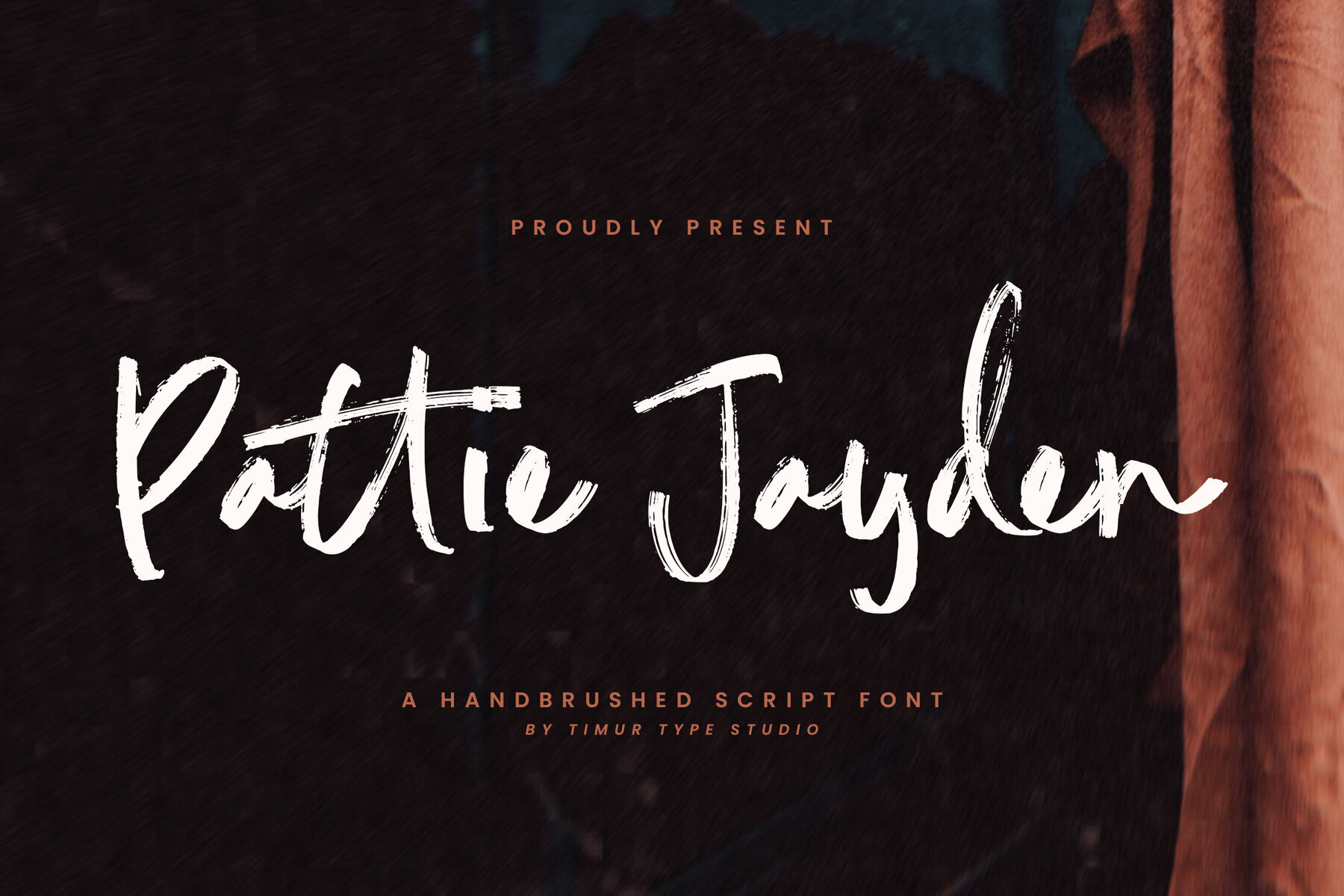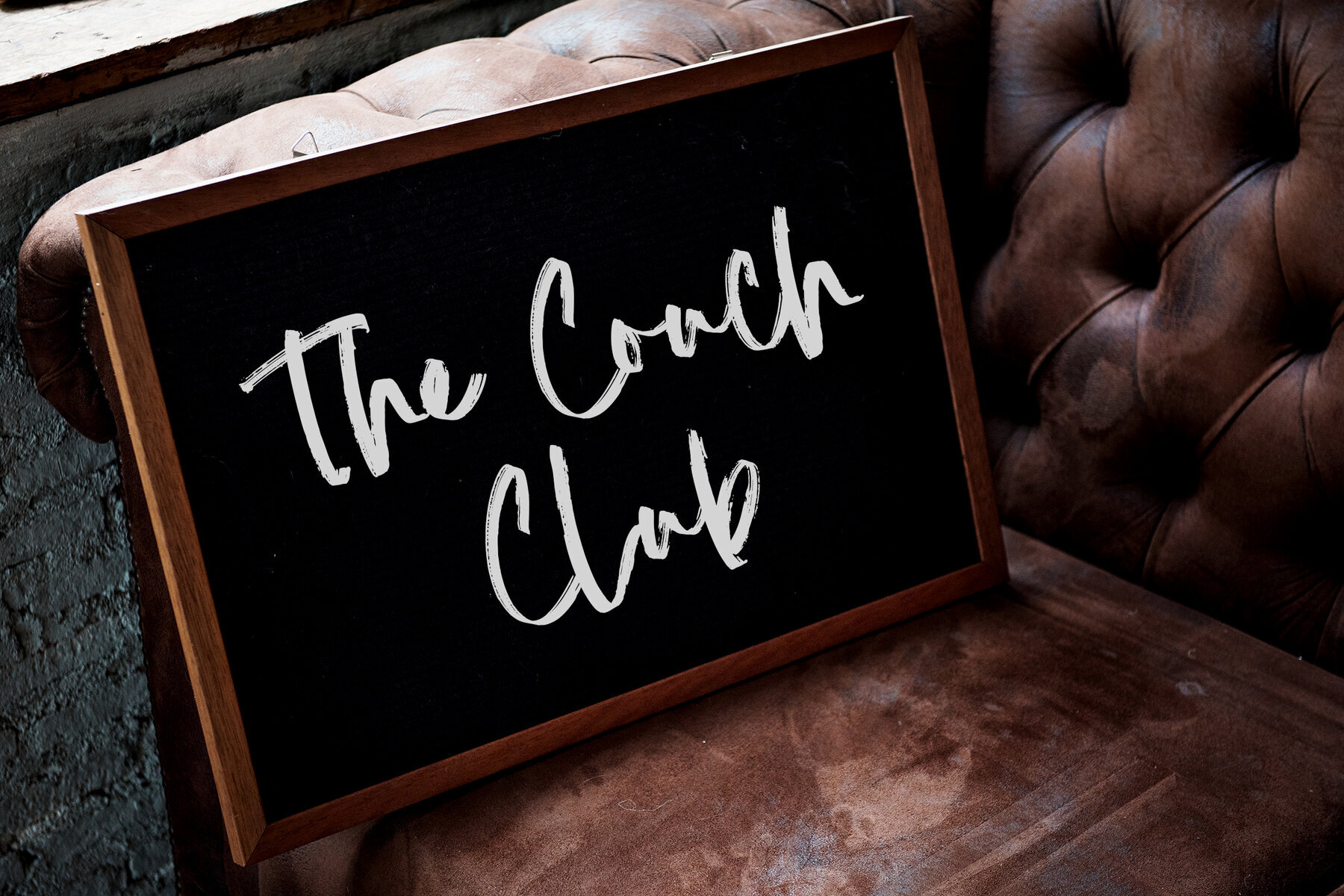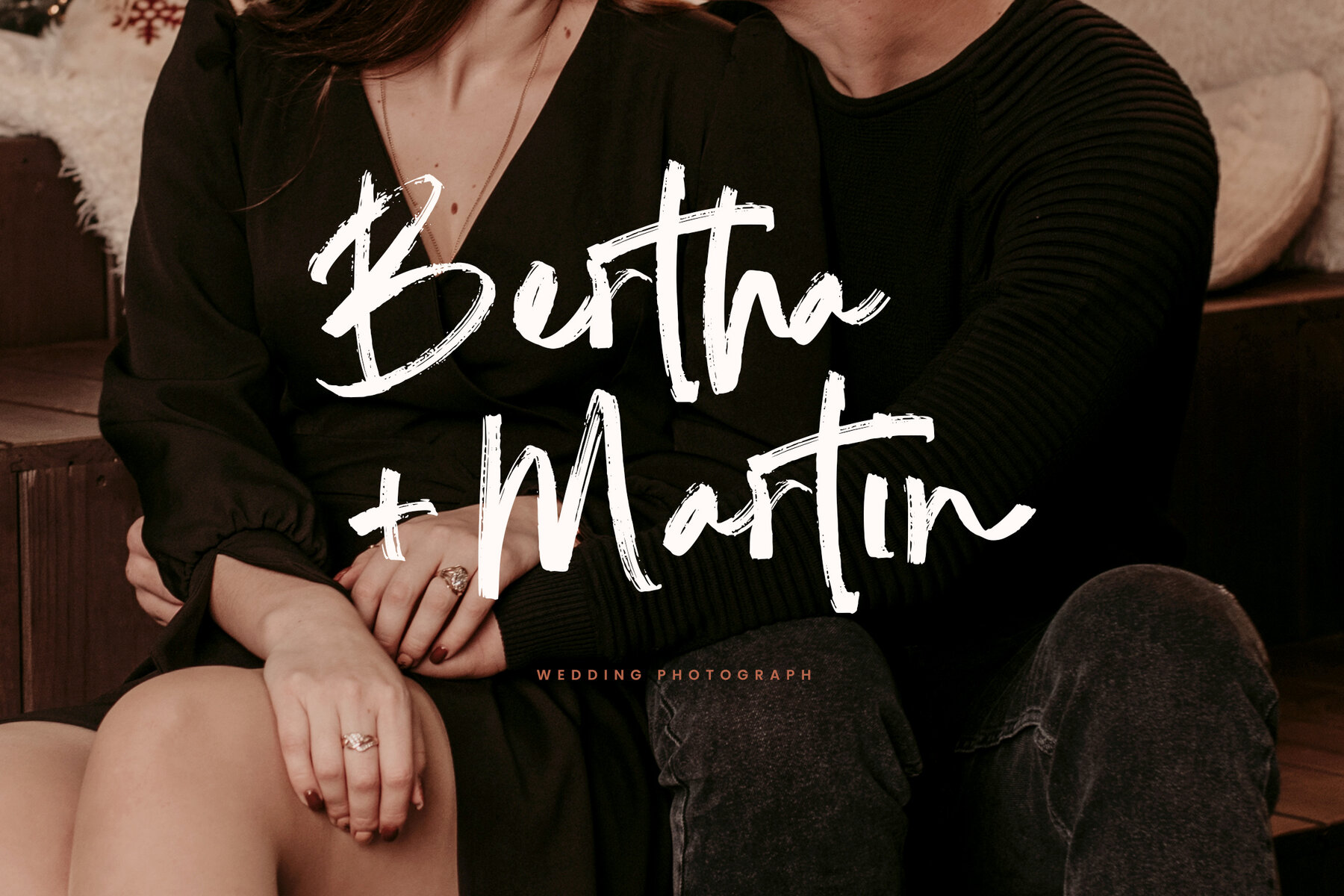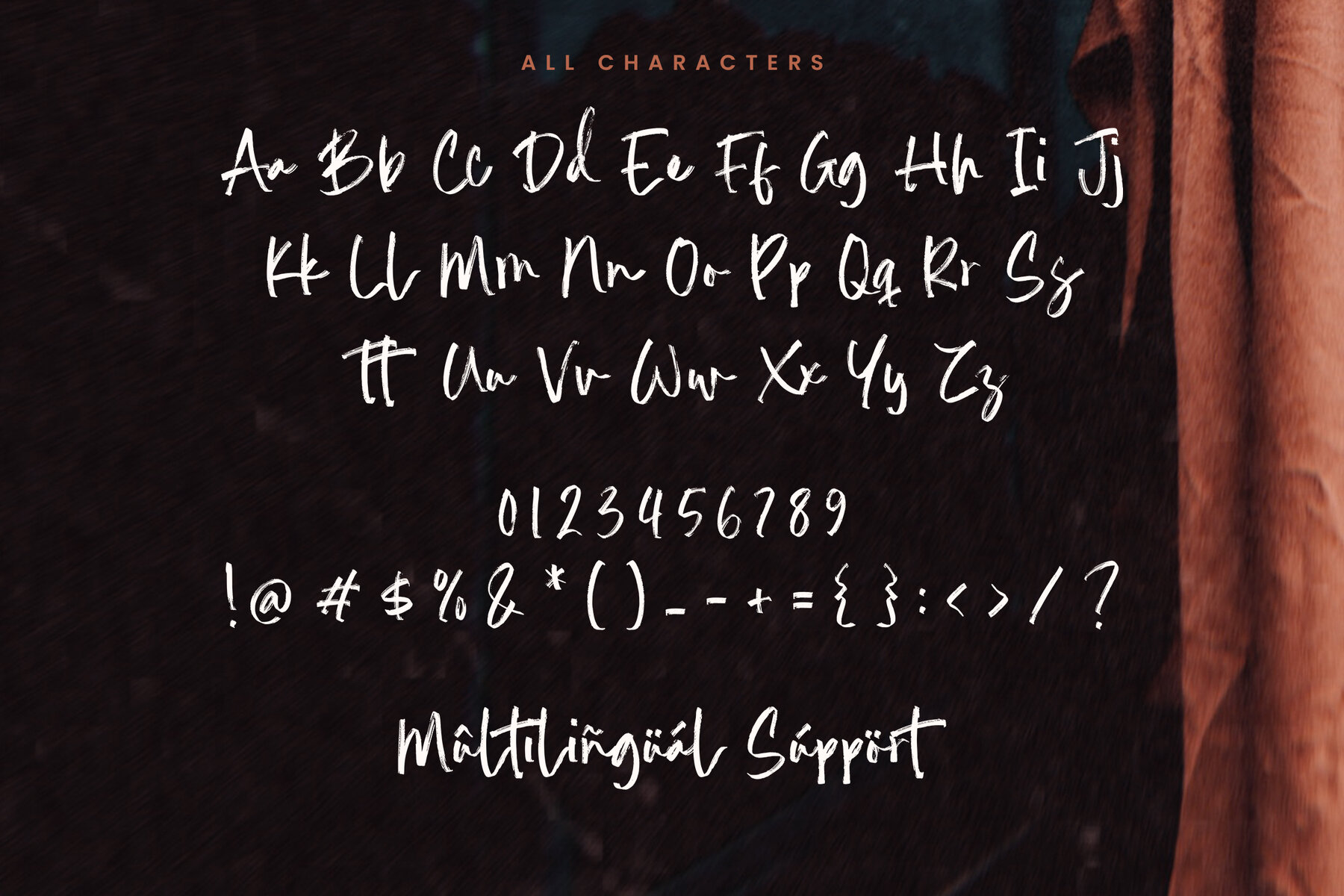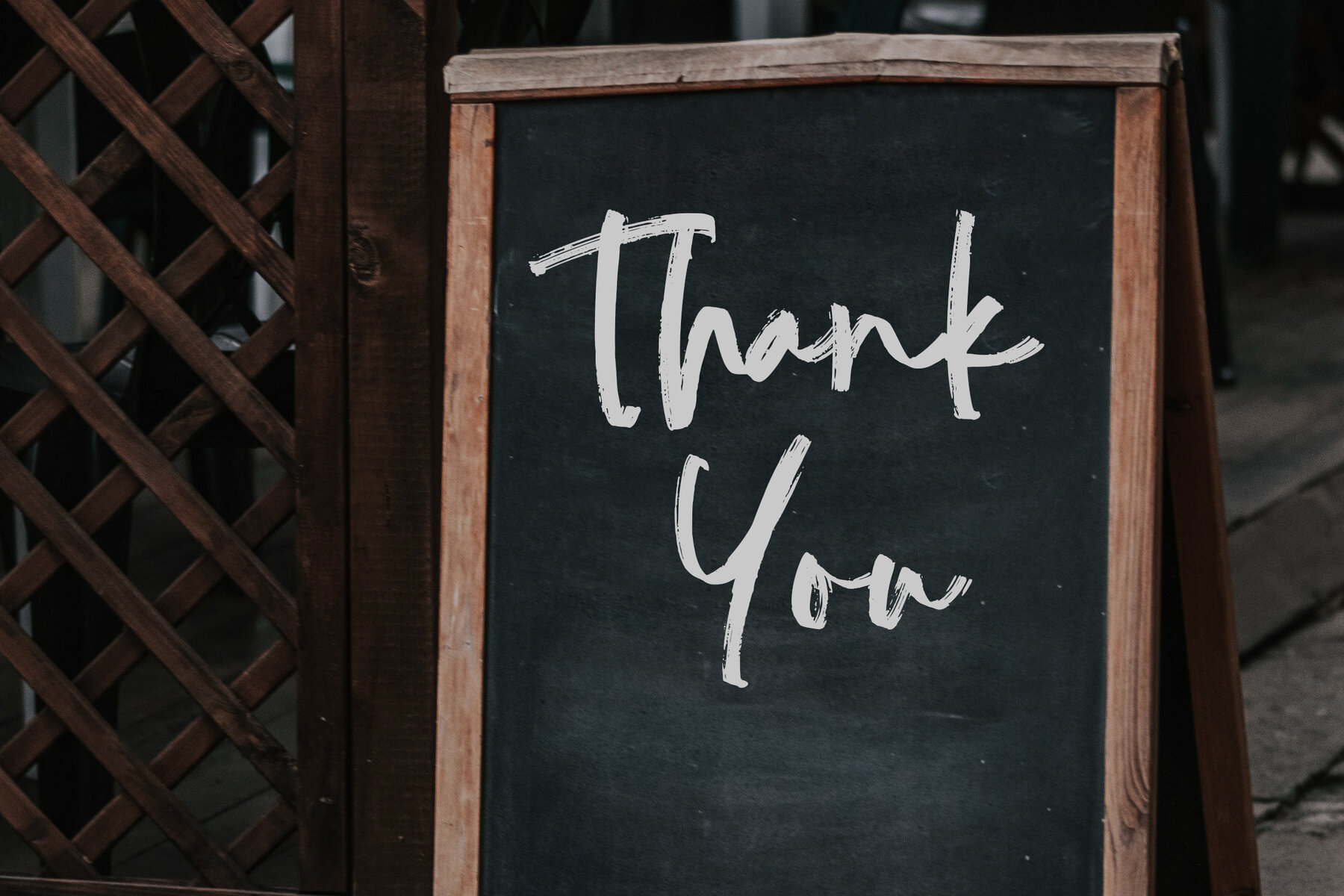
Pattie Jayden Font
Pattie Jayden
Pattie Jayden is a handbrushed script font that infuses designs with both fluidity and a playful elegance. Its artistic flow and modern appeal make it ideal for adding a handwritten feel to branding, invitations, and various creative projects. The font's natural strokes provide a seamless blend of sophistication and charm, ensuring that your designs stand out with a unique, artistic touch.
With its smooth curves and stylish flair, Pattie Jayden offers a versatile aesthetic that suits a range of applications. It effortlessly captures a relaxed yet polished vibe, making it a perfect choice for designers looking to infuse their work with a personal and approachable character. Whether utilized in digital or print media, this font enhances creativity and adds a distinctive edge to your design projects.